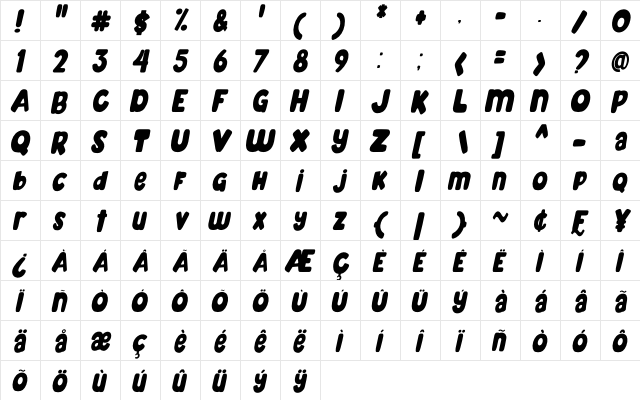
Mahoney Higher Tilted Italic
Design Context for Mahoney Higher Tilted Typeface
Mahoney Higher Tilted is a composed and adaptable typeface that performs quietly and consistently across a wide range of design contexts. The dynamic lean of this cut emphasises speed and emphasis in any layout.
Pro Tip: Use Mahoney Higher Tilted for emphasis, pull quotes, and subheadings where its slanted energy can add rhythm to the layout.